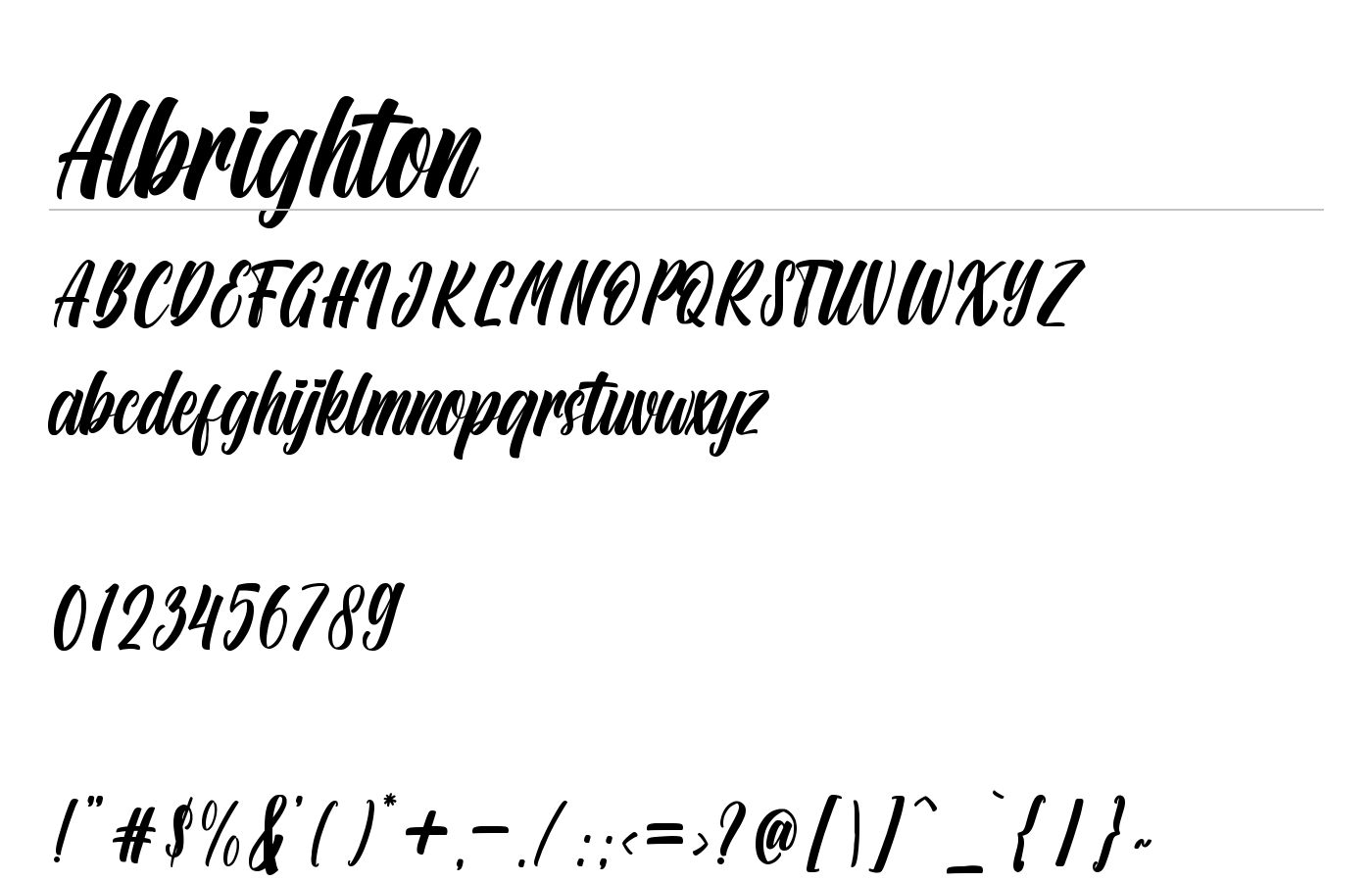
Albrighton is a stylish script font with a smooth, flowing design that mimics elegant handwritten calligraphy. Its medium weight and slightly condensed letterforms create a graceful, modern feel while maintaining readability, making it ideal for branding, invitations, and headline use where a touch of sophistication is desired. This font brings a friendly yet refined personality to any project, perfect for adding a personal and artistic flair.
Albrighton Font
About Albrighton Font
| Font family | Albrighton Font |
| Designer | Mozatype.std |